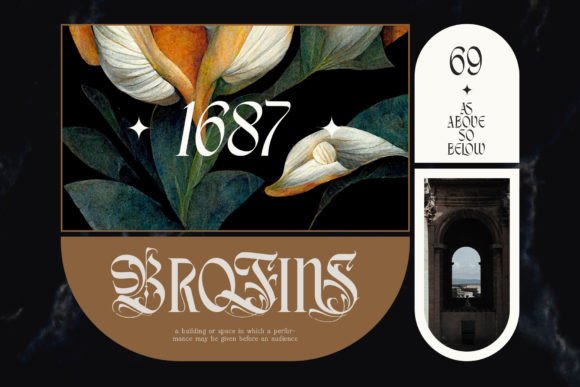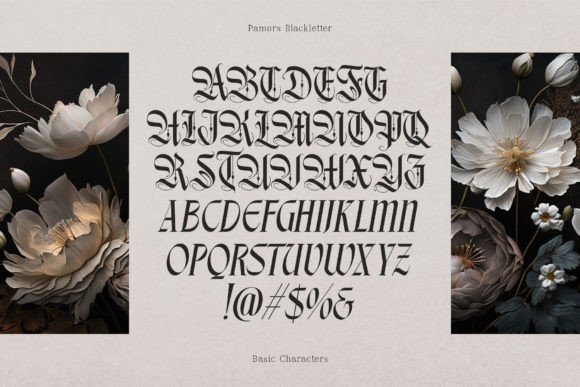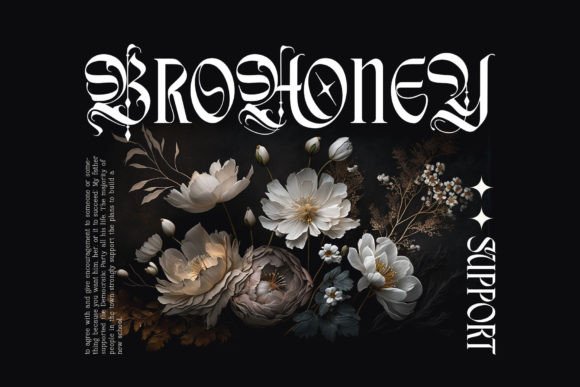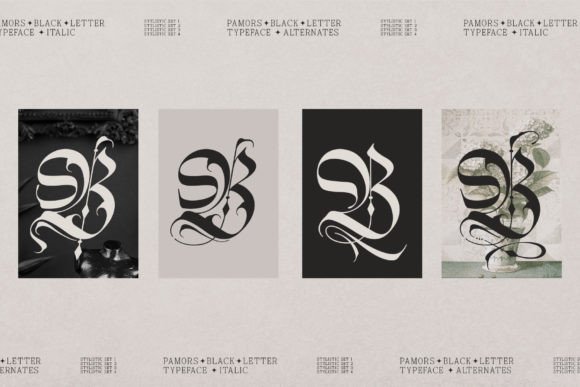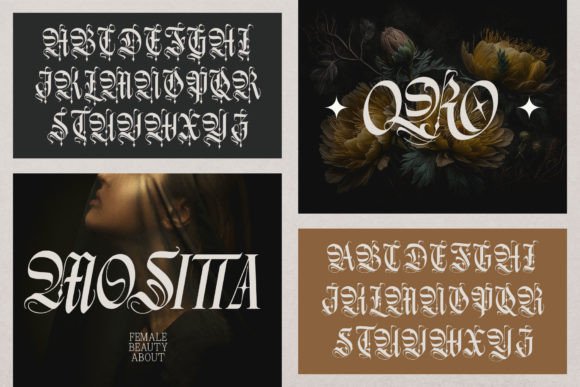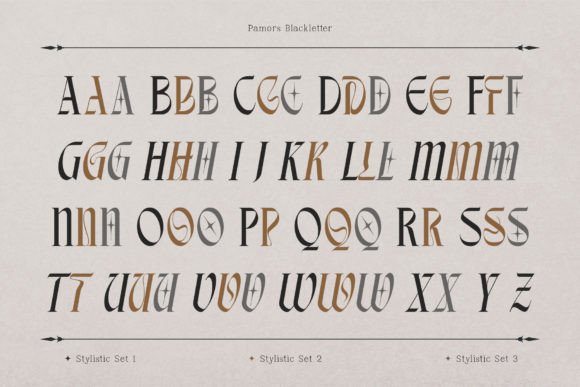
Unleashing the Power of Typography: A Creative Designer’s Dream
Remember that moment when you’re working on a creative project and you just can’t find the right font to bring your idea to life? The frustration of scrolling through endless design resources, searching for that perfect match, can be overwhelming. But what if I told you that there’s a font that can make all the difference? Say hello to the Pamors Font, a bold and daring blackletter font that exudes strength and power.
As a designer, you know how crucial it is to have high-quality fonts at your disposal. That’s why the Pamors Font is a valuable addition to any design library. With its extensive multilingual support and PUA unicode, you can easily access special characters and create beautiful, elegant designs with ease.
Key Features of Pamors Font
- High-quality design resource suitable for various creative projects
- Features a transparent background, ideal for use on various backgrounds
- Designed with a modern and sleek aesthetic, suitable for a range of creative applications
- Perfect for designers seeking a unique and eye-catching font for their next creative project
Honest Review: Pamors Font
As a designer, I’m always on the lookout for high-quality fonts to elevate my creative projects. Recently, I stumbled upon the Pamors Font, which promised a free download with a transparent background. I was excited to see how it would perform.
Here are the things that worked well for me: ✨ High-quality glyphs, ✨ Clear and legible text, and ✨ Versatility in terms of font sizes and styles. The font’s modern design made it perfect for my latest project, a minimalist brochure. I was able to easily customize the text and headings to match my design vision.
However, there are some limitations to keep in mind: ⚠️ Limited font weights, ⚠️ Not suitable for complex typography, and ⚠️ May not be suitable for print materials due to its digital design.
Overall, I’m impressed with the Pamors Font. While it may not be perfect for every project, it’s a great addition to my design resource library. If you’re looking for a free, high-quality font with a transparent background, the Pamors Font is definitely worth considering.
Some potential use cases for the Pamors Font include:
- Digital projects, such as websites and social media graphics
- Minimalist designs, where a clean and simple font is desired
- Creative projects, such as infographics and presentations
Pamors Font
Pamors Font is a versatile and high-quality design resource perfect for creative projects. It’s available for free download and features a transparent background, making it easy to integrate into various design platforms.
Tips for Getting the Most Out of Pamors Font
To get the most out of Pamors Font, experiment with different font sizes, colors, and combinations to find the perfect look for your project. You can also use it in conjunction with other design elements to create a cohesive and visually appealing design.
Common Use Cases for Pamors Font
Pamors Font is ideal for use in a wide range of creative projects, including social media graphics, presentations, reports, and logos. Its high-quality design and transparent background make it a versatile and useful design resource.